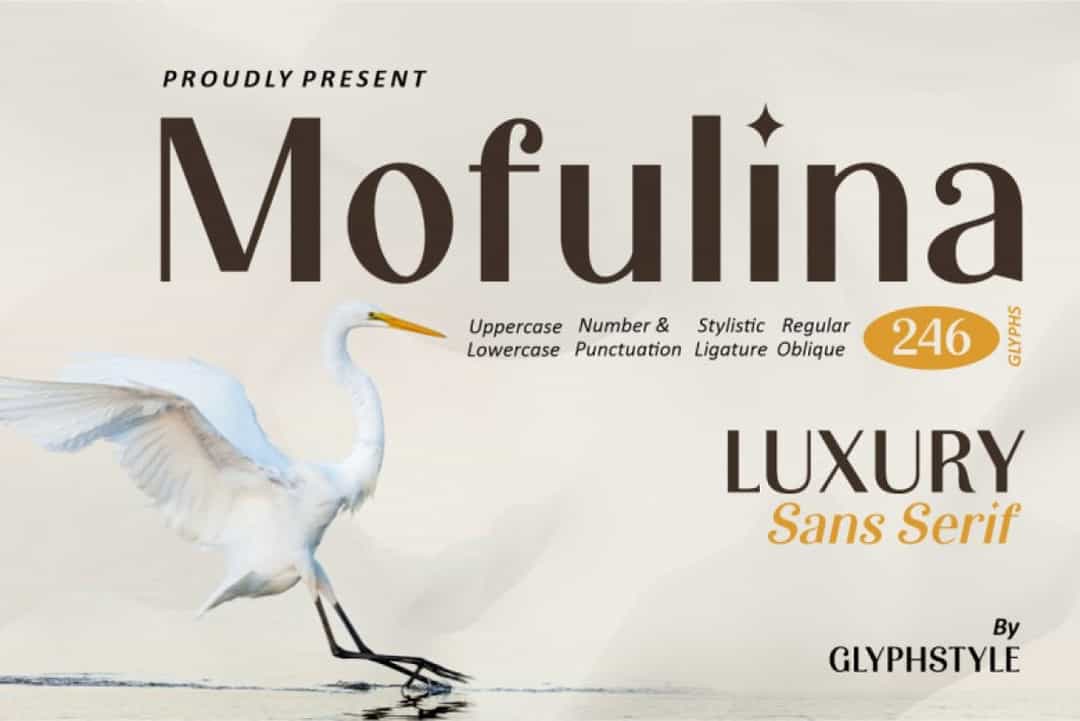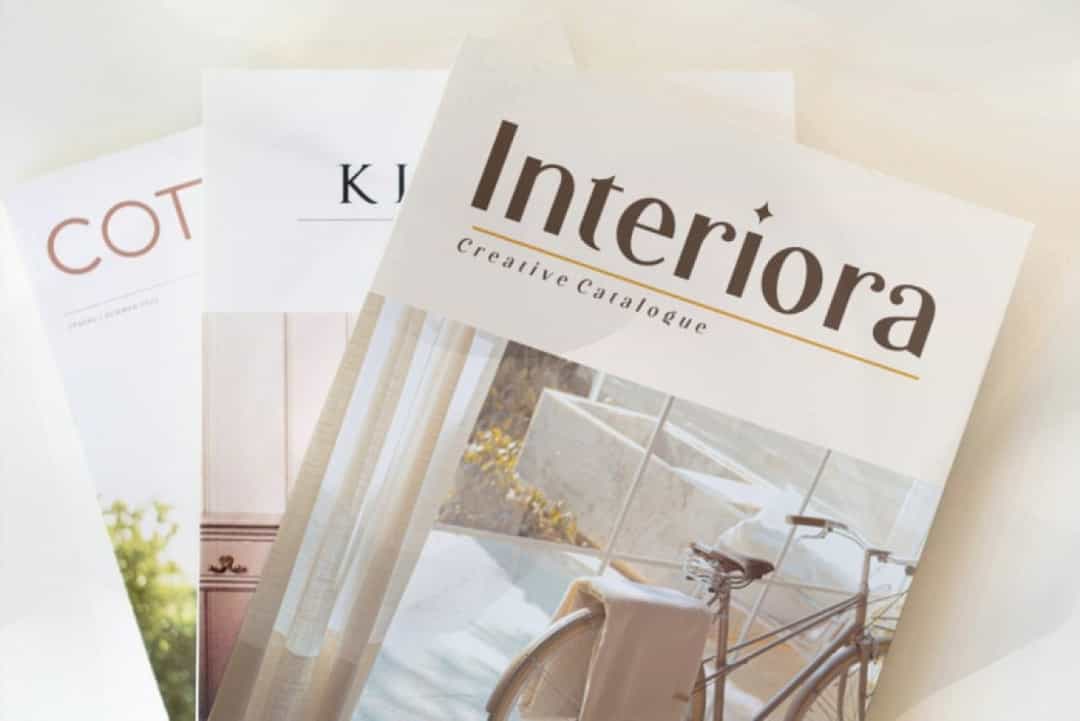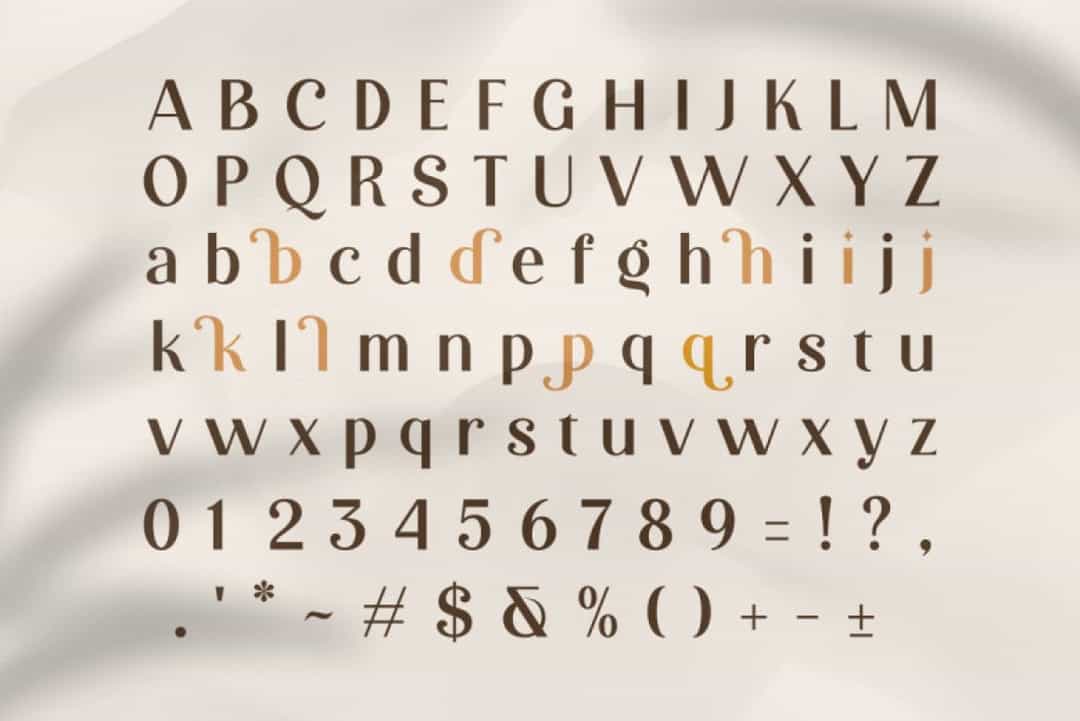
Mofulina can be described as an extravagant and luxurious sans serif display font, ideal for logos of high-end brands such as Gucci or Porsche. There is a range of options to enhance letters while the fonts themselves are elegant and stylish.